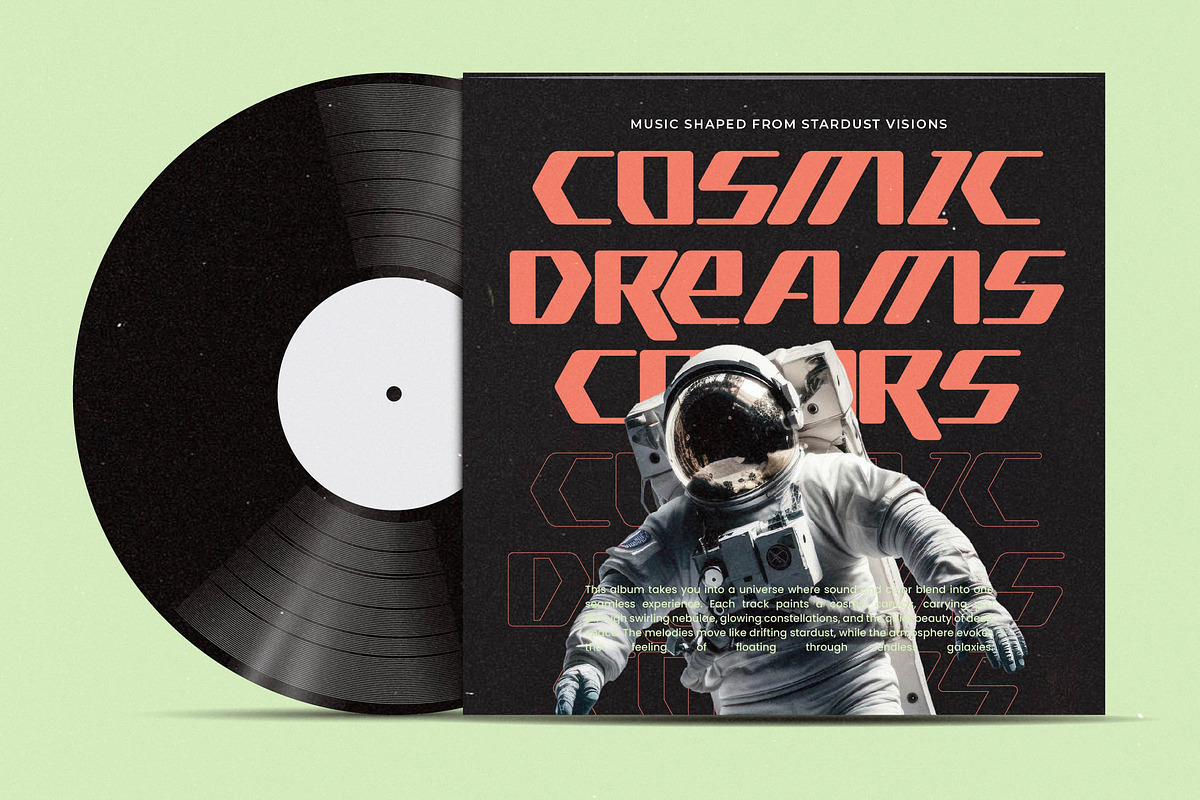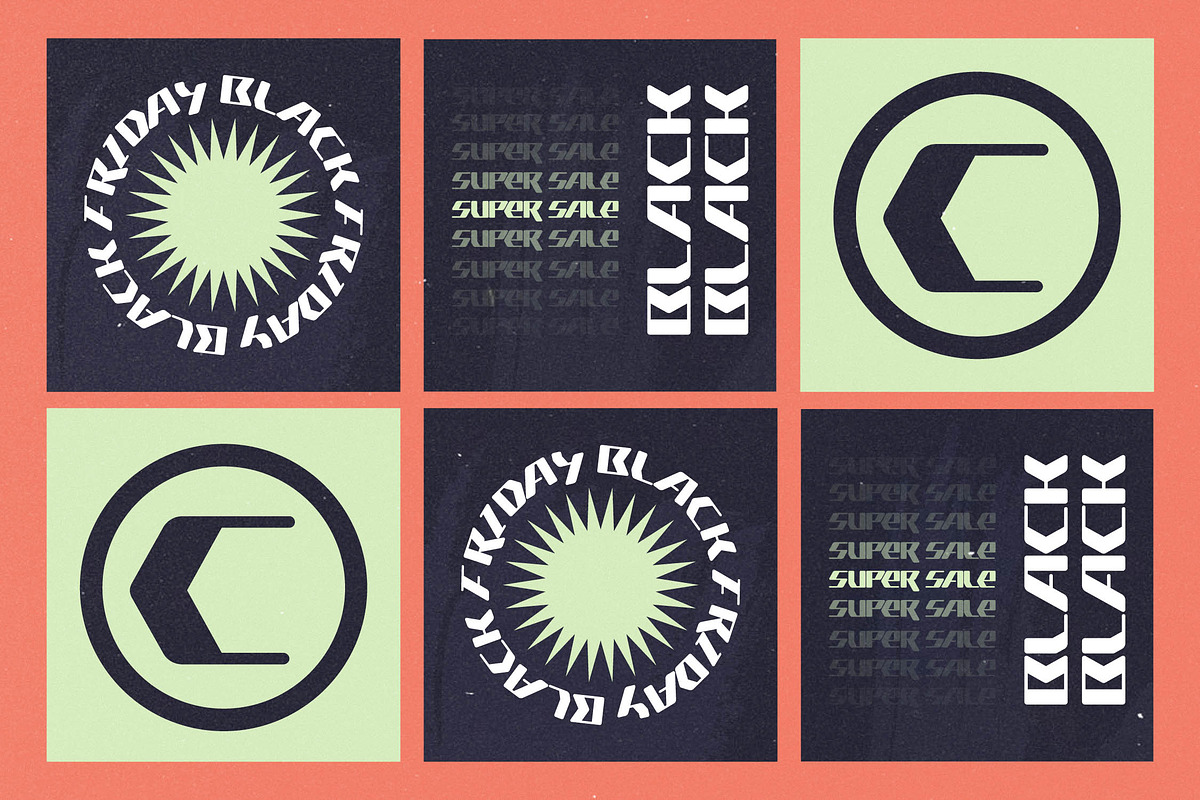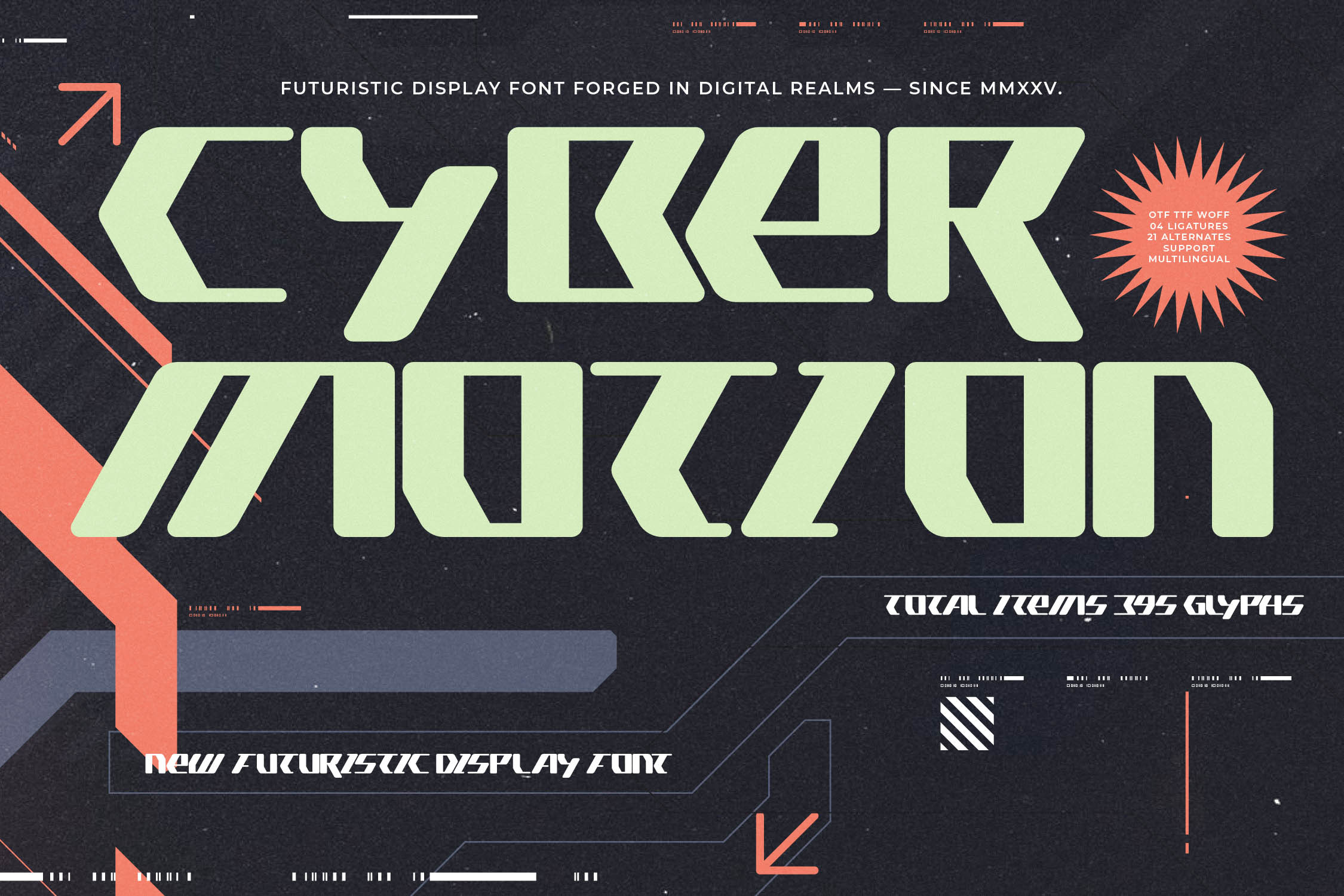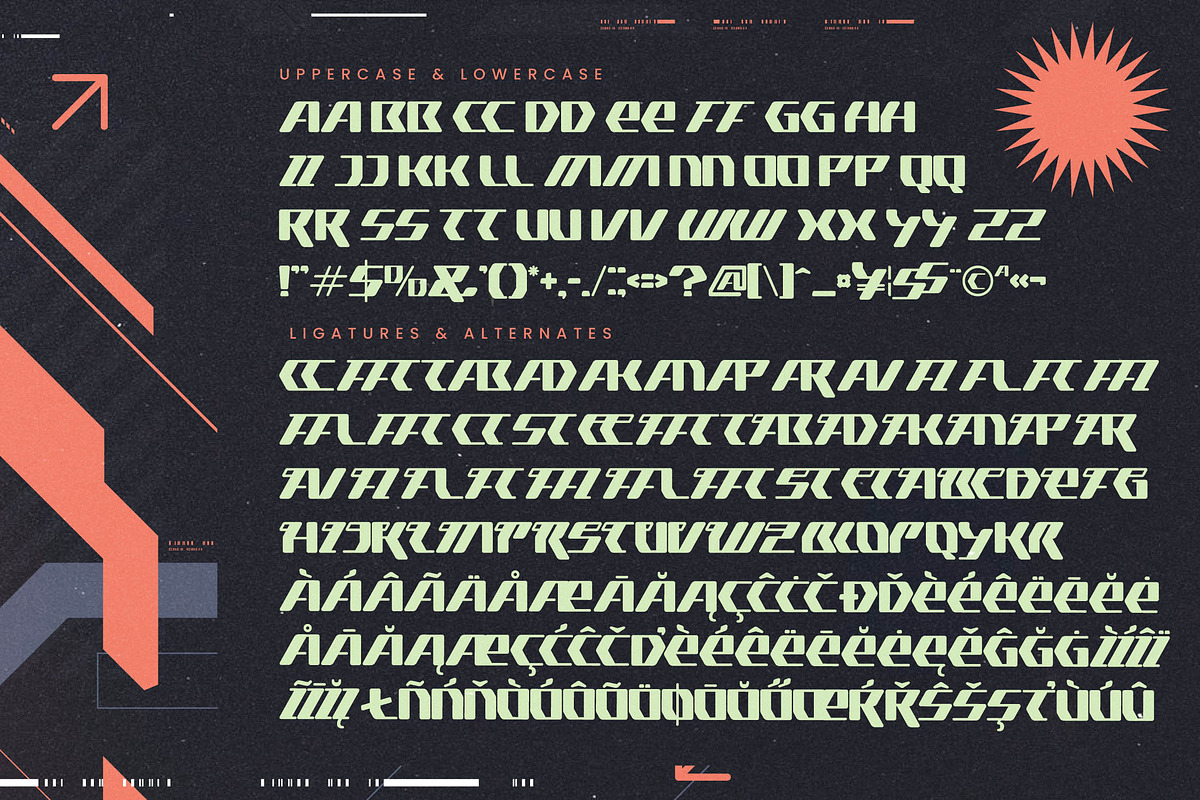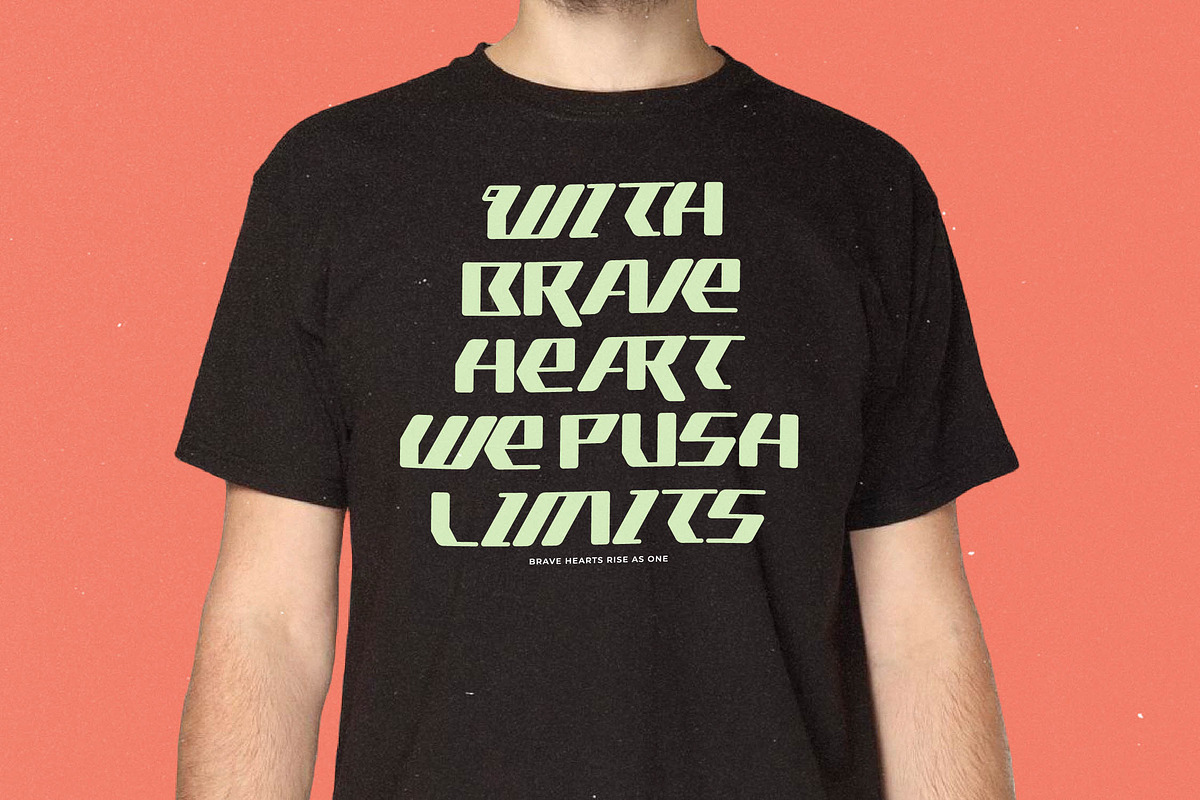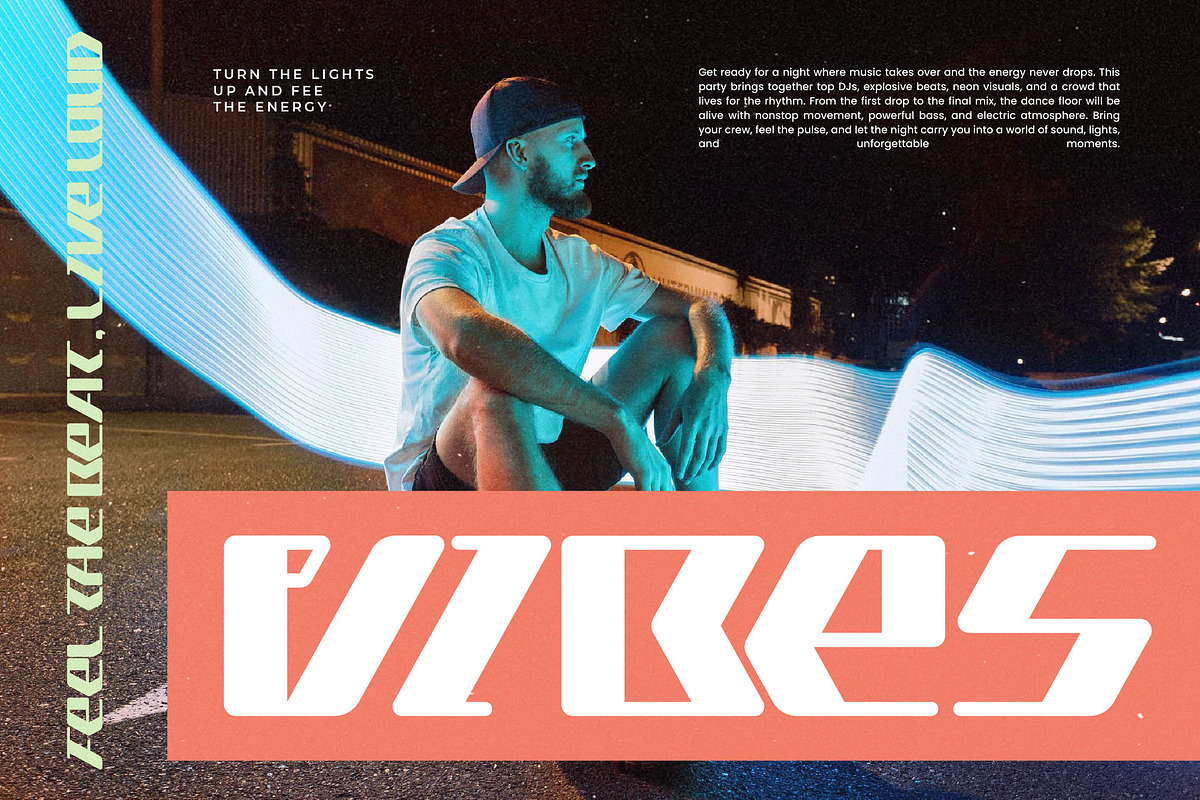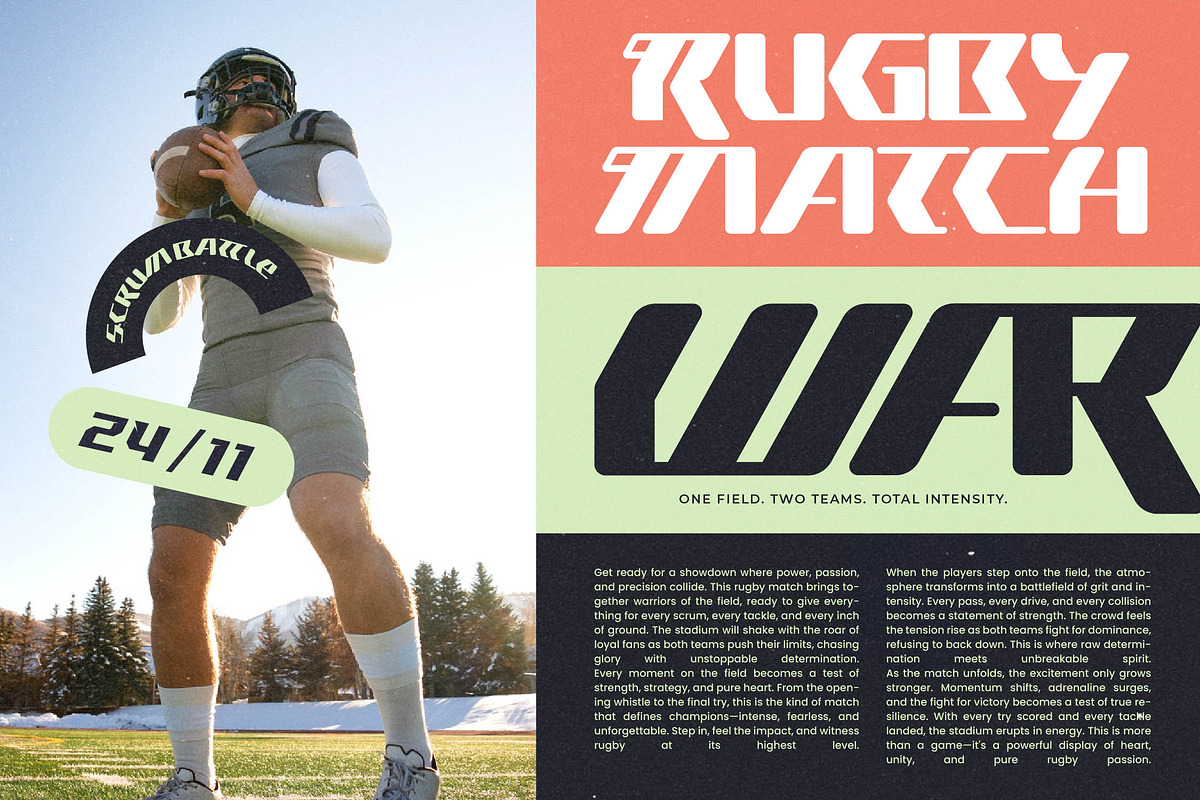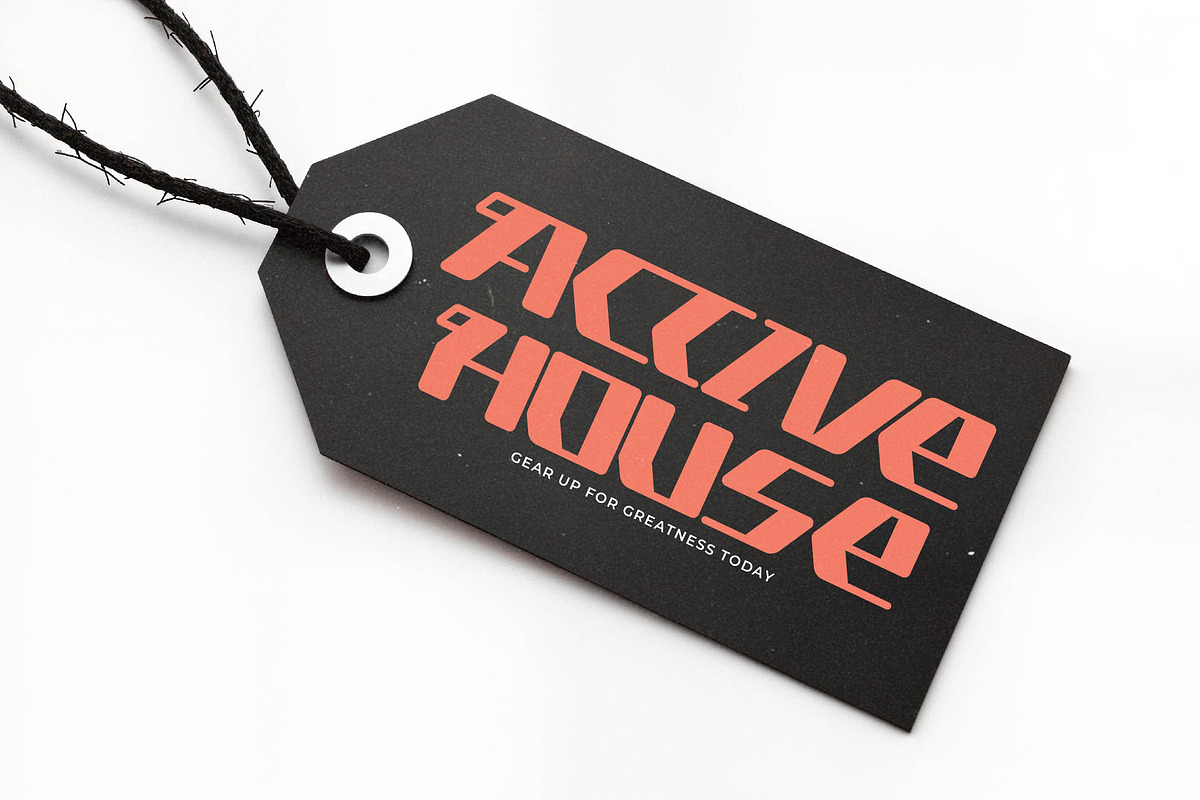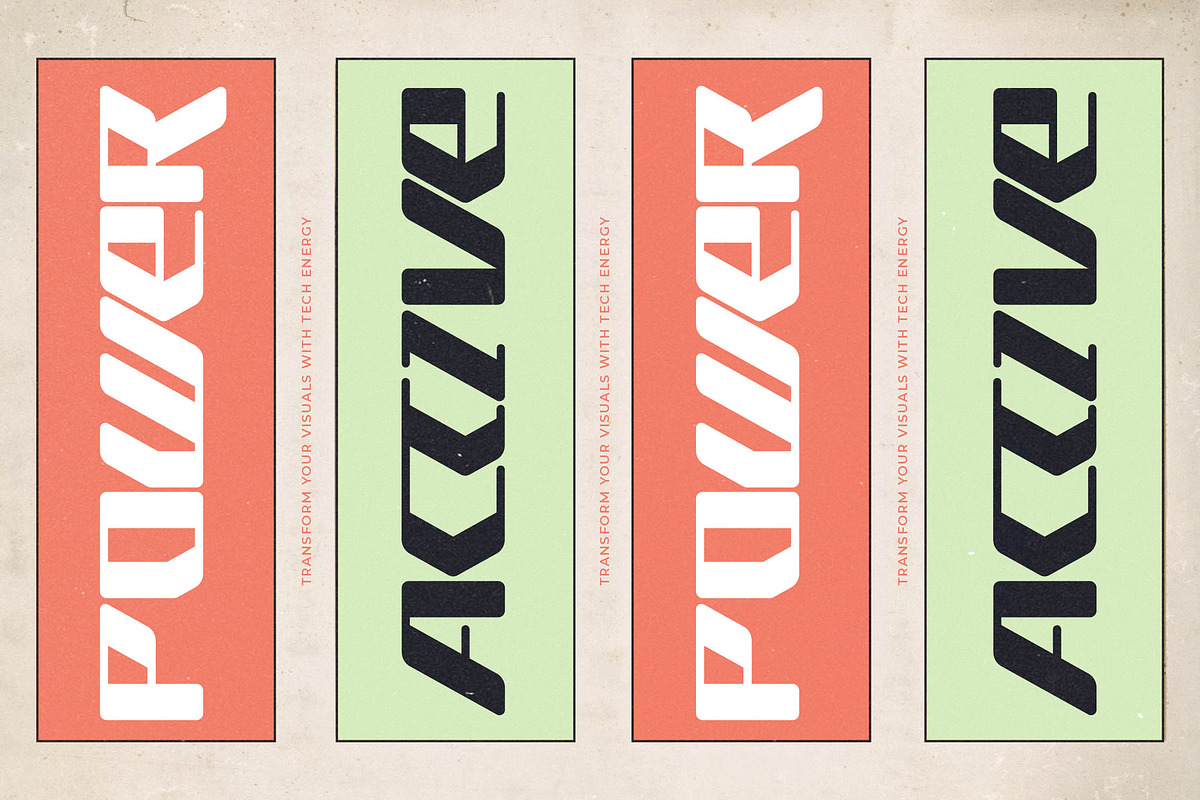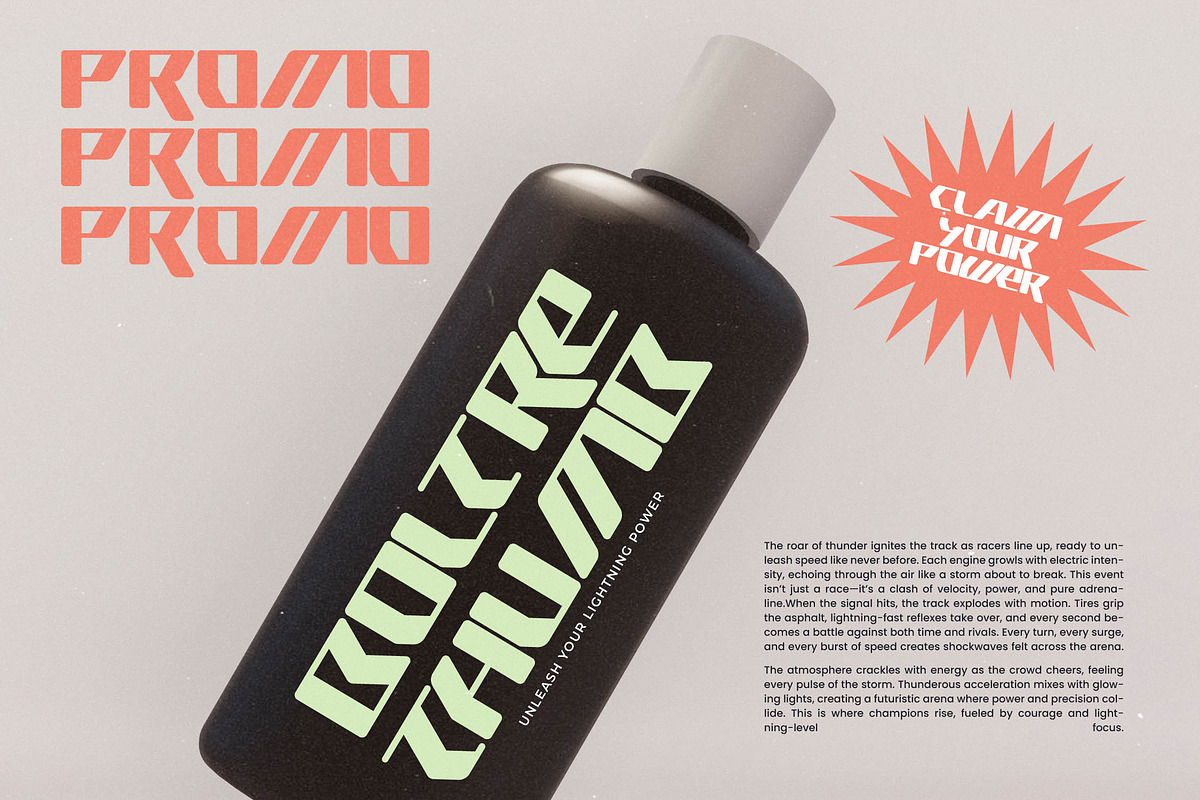
Cyber Motion Futuristic Font
Step into the digital frontier with Cyber Motion, a typeface meticulously engineered for high-velocity visual impact and technological precision. This font commands the screen with its sharp, architectural angles and a presence that feels both mechanical and alive.
Forged in the neon-lit corridors of a futuristic digital realm, the inspiration behind these letterforms stems from the intersection of motion graphics and advanced user interfaces. Every character is designed to reflect a sense of momentum and evolution, making it the definitive choice for projects that define the edge of tomorrow.
This modern serif display provides a bold evolution of luxury typography, successfully merging the sophistication of a high-contrast serif with the aggressive stance of cybernetic aesthetics. It serves as a high-performance editorial font crafted specifically to maximize your branding impact through its unique geometric dominance.
By capturing the essence of the modern serif trend and projecting it into a sci-fi dimension, this typeface stands alone among contemporary editorial display fonts. It represents the new standard for character-driven typography where every glyph acts as an individual piece of digital art for a tech-hungry market.
From high-concept logo design to immersive corporate branding, this font excels across digital editorial layouts and futuristic product packaging. Whether utilized for an avant-garde wedding invitation or high-street fashion lookbooks, it brings a sophisticated and otherworldly edge to your canvas.
This package features a robust set of 395 glyphs including a wide variety of ligatures and creative alternates to ensure your designs remain distinctive. While it avoids traditional swashes, its comprehensive multilingual support and extensive international characters make it a versatile tool for any global design project.